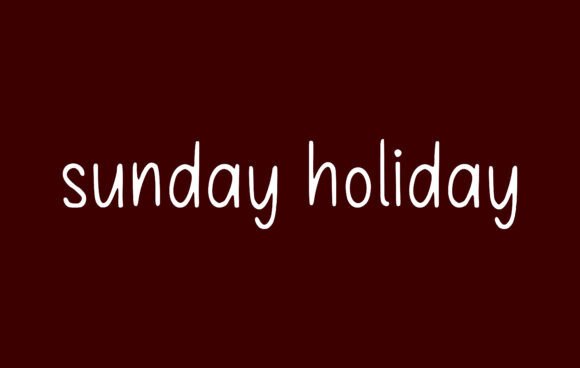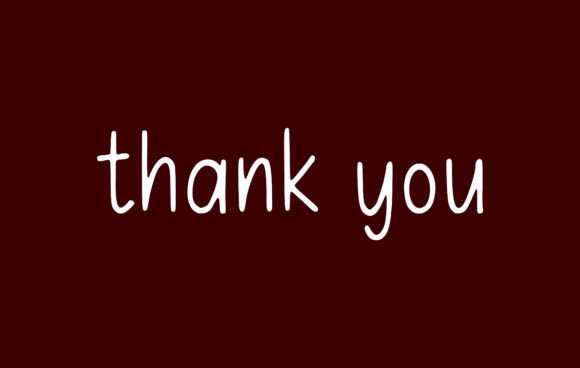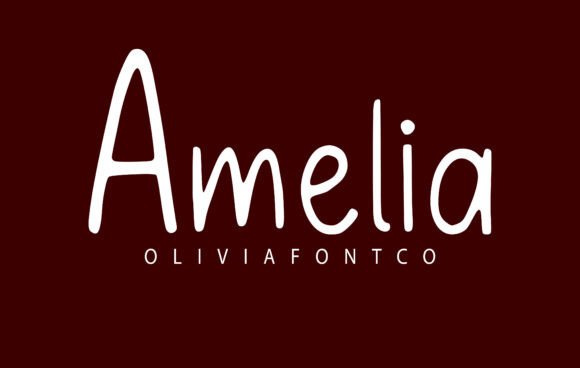
Discover the Charm of Amelia Font: Elevate Your Designs with a Romantic Touch
Are you on the hunt for a font that adds a touch of romance and elegance to your creative projects? Look no further than Amelia Font, a beautiful handwritten font designed to capture the hearts of designers and crafters alike. With its authentic, cursive style and exceptional legibility, Amelia Font is the perfect choice for a wide range of design applications, from magazine headlines and social media graphics to wedding invitations, branding, and more.
The Beauty of Amelia Font
Amelia Font boasts a unique, handwritten aesthetic that exudes warmth and sophistication. Its romantic touch is sure to elevate your designs, making them stand out in a crowded digital landscape. The font’s expert design ensures that it remains legible even at smaller sizes, making it an excellent choice for body text as well as titles and headings.
One of the most significant advantages of Amelia Font is its versatility. Its elegant, cursive style lends itself beautifully to a variety of design applications, including:
- Magazine Headlines: Add a touch of glamour to your magazine covers with Amelia Font’s sophisticated, eye-catching style.
- Social Media Graphics: Elevate your social media presence with stunning graphics that showcase Amelia Font’s romantic charm.
- Branding: Establish your brand’s identity with a font that exudes elegance and refinement.
- Wedding Invitations: Make your wedding invitations truly unforgettable with Amelia Font’s beautiful, handwritten style.
- Cards and Stationery: Add a personal touch to your cards and stationery with Amelia Font’s unique, cursive aesthetic.
Why Choose Amelia Font?
With so many fonts available, why should you choose Amelia Font for your design projects? Here are just a few compelling reasons:
- Unique Style: Amelia Font’s authentic, handwritten style sets it apart from more generic fonts.
- Exceptional Legibility: The font’s careful design ensures that it remains easy to read, even at smaller sizes.
- Versatility: Amelia Font’s elegant style makes it suitable for a wide range of design applications.
Tips for Using Amelia Font
To get the most out of Amelia Font, here are a few tips to keep in mind:
- Experiment with Sizes: Amelia Font looks great at a variety of sizes, so don’t be afraid to experiment to find the perfect fit for your design.
- Pair with Other Fonts: Combine Amelia Font with other fonts to create a unique, visually appealing typography scheme.
- Use for Emphasis: Amelia Font’s elegant style makes it perfect for adding emphasis to key words or phrases in your design.
Amelia Font is a beautiful, romantic font that has the potential to elevate your designs to new heights. With its authentic, handwritten style and exceptional legibility, it’s the perfect choice for designers and crafters looking to add a touch of elegance to their creative projects. Whether you’re working on magazine headlines, social media graphics, wedding invitations, or more, Amelia Font is sure to become a true favorite in your design arsenal.